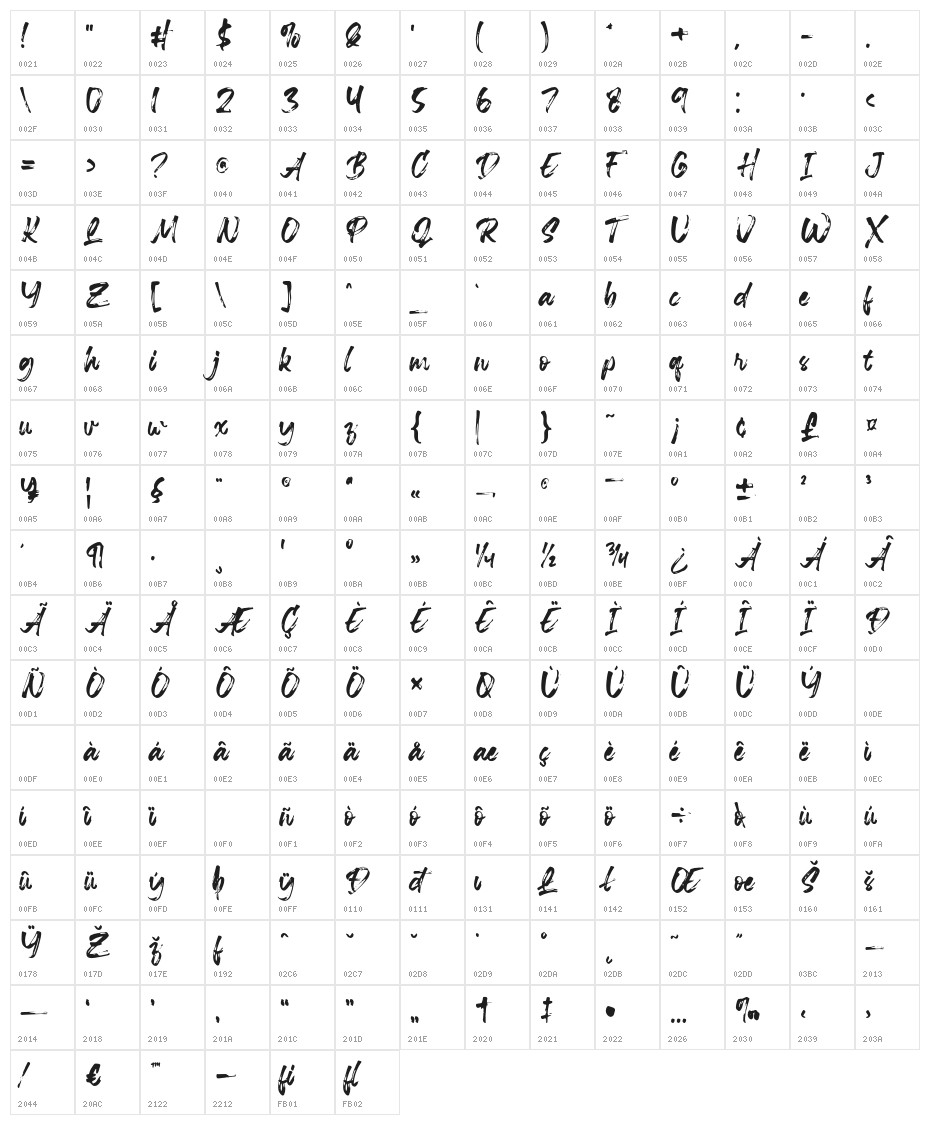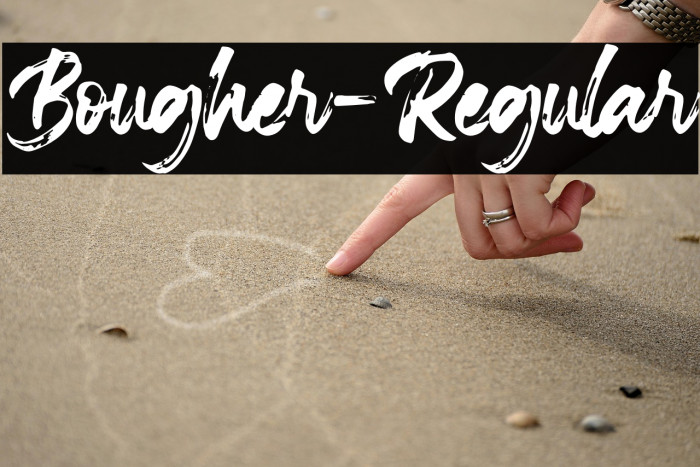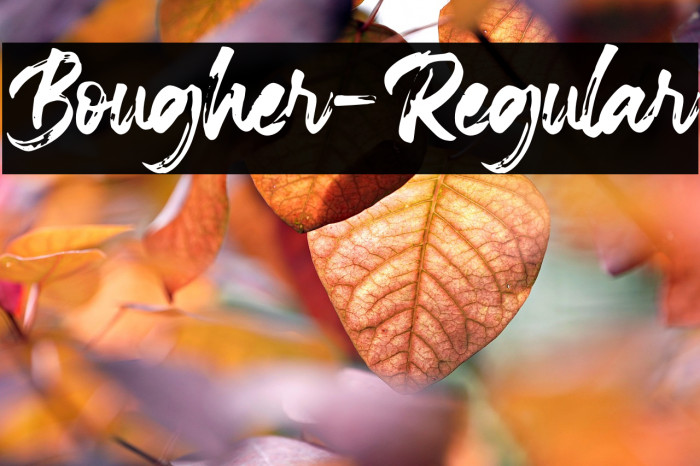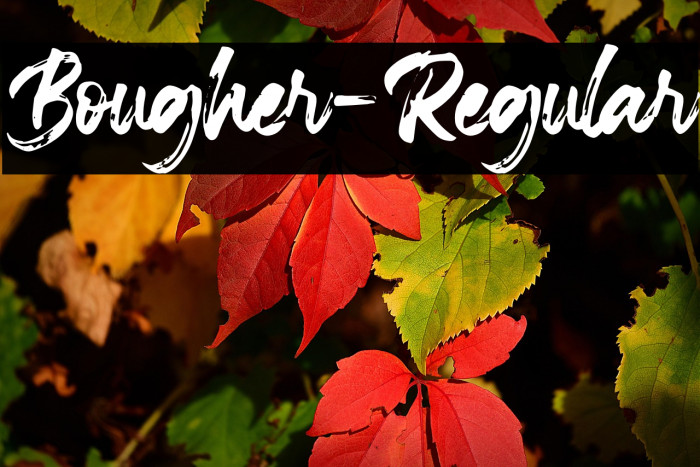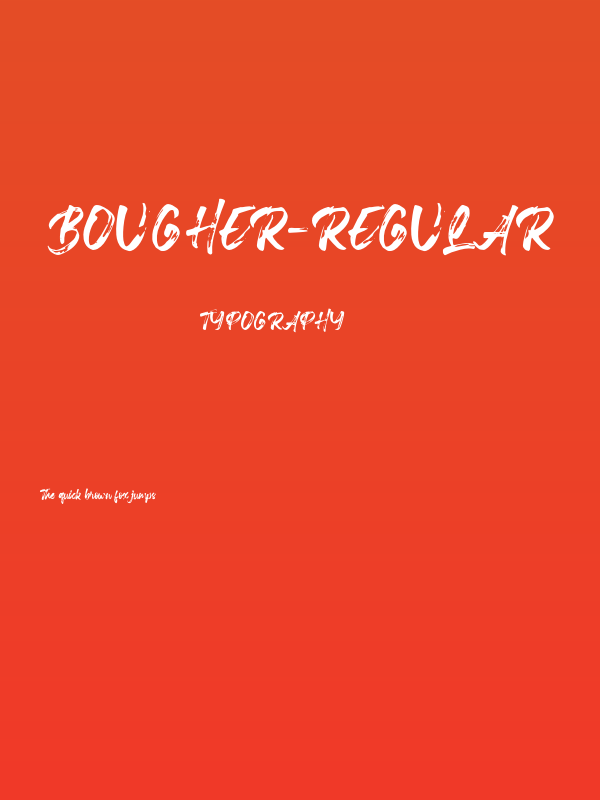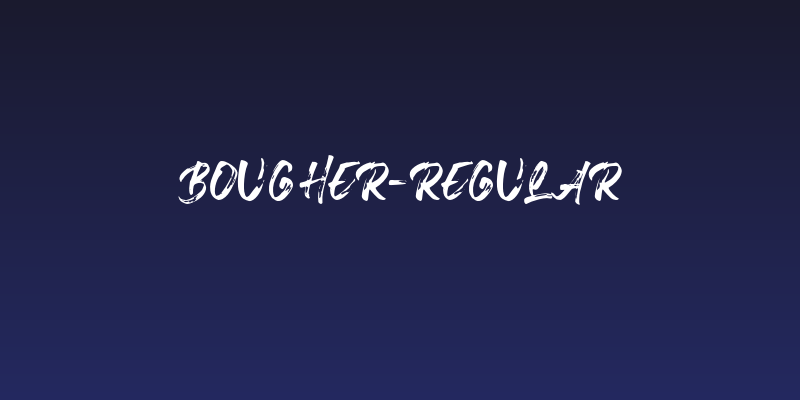
Bougher-Regular Font
Bougher-Regular Description
This font features a dynamic and expressive brush script style, characterized by its bold and energetic strokes. The letters exhibit a hand-painted appearance, with varying thickness and a slightly rough texture that adds a sense of movement and spontaneity. The uppercase letters are bold and commanding, while the lowercase letters maintain a fluid and connected form, enhancing the overall artistic feel. Numbers and special characters follow the same expressive style, making the font suitable for creative and impactful designs.